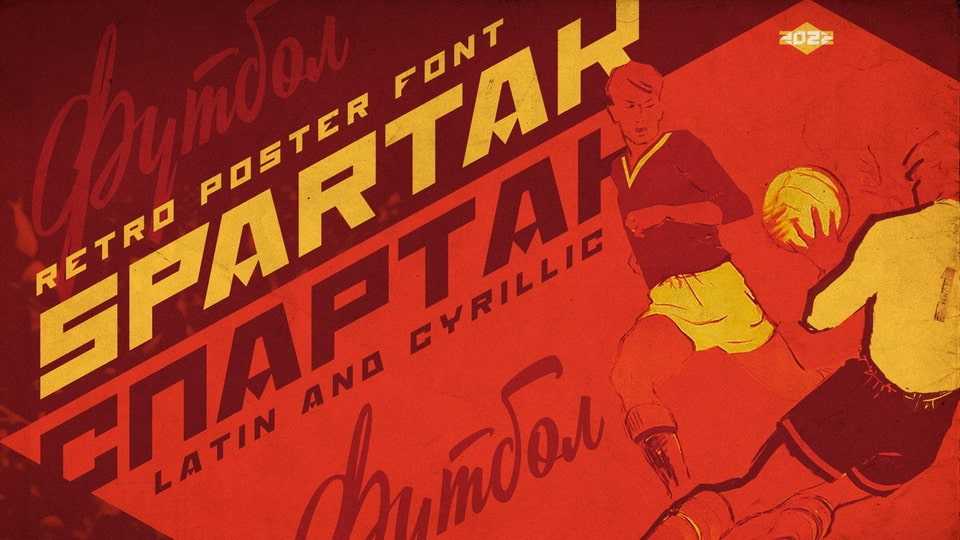
Download ST-Spartak font, a retro wide grotesque typeface inspired by the Soviet Sport posters, movie titles and book covers. ST-Spartak is created for titles, poster design, web design, branding and packaging works, illustrations, badges and other typography works.